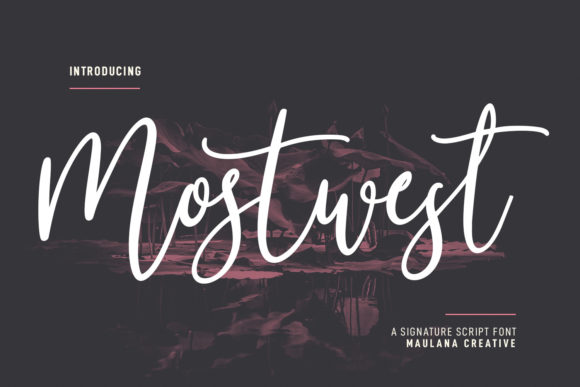
Mostwest Script: The Elegant Script Font for Modern Designs
Understanding the Visual Character of Mostwest Script
When you first encounter Mostwest Script, it doesn't just sit on the page—it dances. This premium font is a masterclass in controlled fluidity, capturing the authentic essence of a handwritten font while maintaining the structural integrity required for professional design work. It bridges the gap between casual calligraphy and high-end typography. The letterforms feature delicate, flowing strokes that mimic the natural pressure variations of a brush or pen held by a skilled hand. You will notice subtle swashes and elegant ligatures that give the typeface a sense of movement and life. It avoids the stiffness often found in digital scripts, offering instead a warm, organic personality that feels inviting and personal.
The visual appeal of Mostwest Script lies in its balance. It is undeniably stylish, yet it remains legible even at smaller sizes. The designer has crafted each character to connect seamlessly with the next, creating a rhythmic flow that guides the eye across the word. This script font embodies a modern romantic aesthetic. It feels current and fresh, avoiding the dusty, outdated look of some traditional calligraphy fonts. It is the kind of typeface that instantly elevates a design, transforming a standard layout into something bespoke and curated. Whether you are working on web design or physical stationery, this font brings a distinct level of sophistication that commands attention without shouting.
Where Mostwest Script Truly Shines
Because of its versatile elegance, Mostwest Script is an invaluable addition to any designer's toolkit. Its applications span across a wide variety of creative industries, proving its worth as a go-to creative font. In the world of event planning and stationery, this font is a natural fit. It looks stunning on wedding invitations, setting a romantic and formal tone for the big day. Similarly, it is perfect for thank you cards, save-the-dates, and envelope addressing. The fluidity of the text mimics custom hand-lettering, which clients often desire for high-end events.
For entrepreneurs and small business owners, the font offers a way to build a memorable brand identity. If you are launching a lifestyle brand, a boutique clothing line, or a high-end bakery, Mostwest Script works beautifully for logo design. It conveys a sense of artisanal quality and care. You can apply it to packaging design to make your products stand out on the shelf, suggesting that the contents are just as special as the exterior. It works particularly well for beauty products, gourmet foods, and specialty goods where a human touch is part of the value proposition.
- Editorial Design: Use it for pull quotes or feature headers in magazines and blogs to break up dense text and add visual interest.
- Social Media Graphics: In the fast-scrolling environment of Instagram or Pinterest, this display font stops the thumb. It is excellent for inspirational quotes, sale announcements, and story highlights.
- Digital Products: If you create digital planners, printable wall art, or e-book covers, this font adds the professional polish needed to justify a premium price point.
The Strategic Impact on Typography and Branding
Choosing a typeface is rarely just about aesthetics; it is about psychology and communication. When you integrate Mostwest Script into your modern typography strategy, you are making a specific statement about your brand. Script fonts generally convey personality, creativity, and elegance. By using this specific font, you signal that your brand values sophistication and a personal connection with its audience. It moves your visual communication away from the cold, corporate feel of a standard sans serif font and towards something warmer and more approachable.
However, using a script font effectively requires an understanding of visual hierarchy. You cannot simply replace all your body copy with Mostwest Script and expect readability to remain high. Instead, this font is best used as an accent. It should be reserved for headlines, sub-headers, or call-to-action phrases where you want to inject personality. When paired correctly, it enhances the readability of your main text. For example, combining Mostwest Script with a clean, geometric serif font or a neutral sans serif font creates a dynamic contrast. The script draws the eye, while the body text provides the necessary structure for longer reading.
Practical Guide to Implementation and Pairings
Before you finalize your design, it is crucial to test how Mostwest Script interacts with your other design assets. One of the most common mistakes in design is poor font pairing. Because Mostwest Script has a distinct personality, it pairs best with typefaces that are quiet and structured. Think of it as a lead singer and a backing band. The script is the star, so the supporting font should not compete for attention. Look for sans serifs with even spacing and medium weight to ground the fluidity of the script.
Readability is another key factor. While Mostwest Script is legible for a script font, you must be mindful of the background. Avoid placing this font over busy, high-contrast images without a semi-transparent overlay or a solid shape behind it. The loops and swashes can get lost in complex photography. Always test your designs at the size they will be viewed. A header on a website might look perfect at 48px, but that same font might be difficult to decipher on a mobile screen if the font size is too small. Ensure there is enough leading (line spacing) and tracking to let the letters breathe.